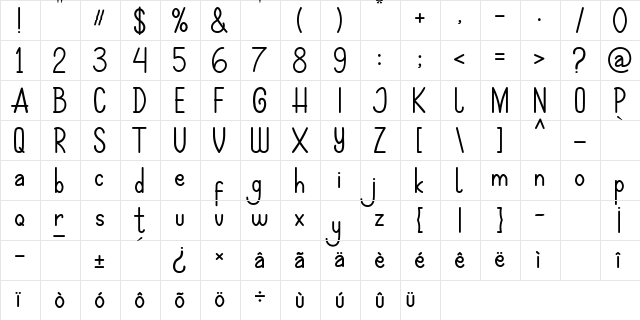
Hijaker's Regular
| Designer | Kapri Prianto (NeutroneLabs) |
Design Context for Hijaker's Typeface
Hijaker's is a composed and adaptable typeface that performs quietly and consistently across a wide range of design contexts.